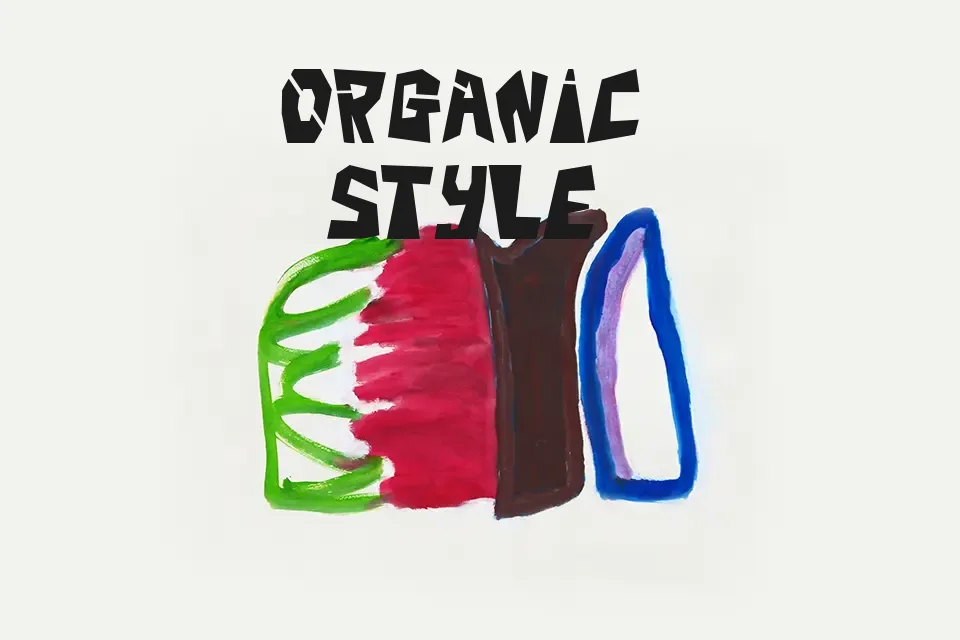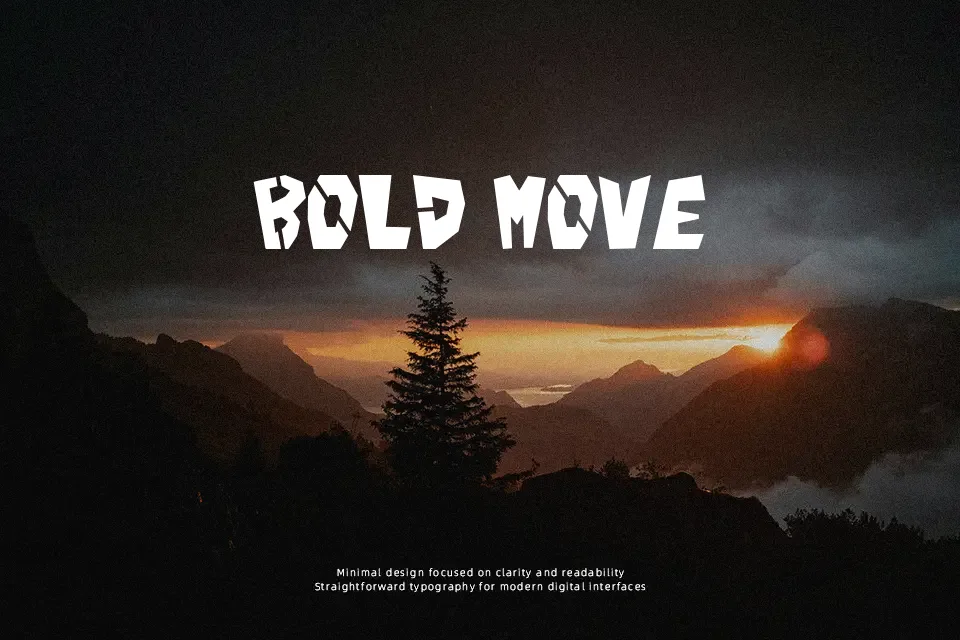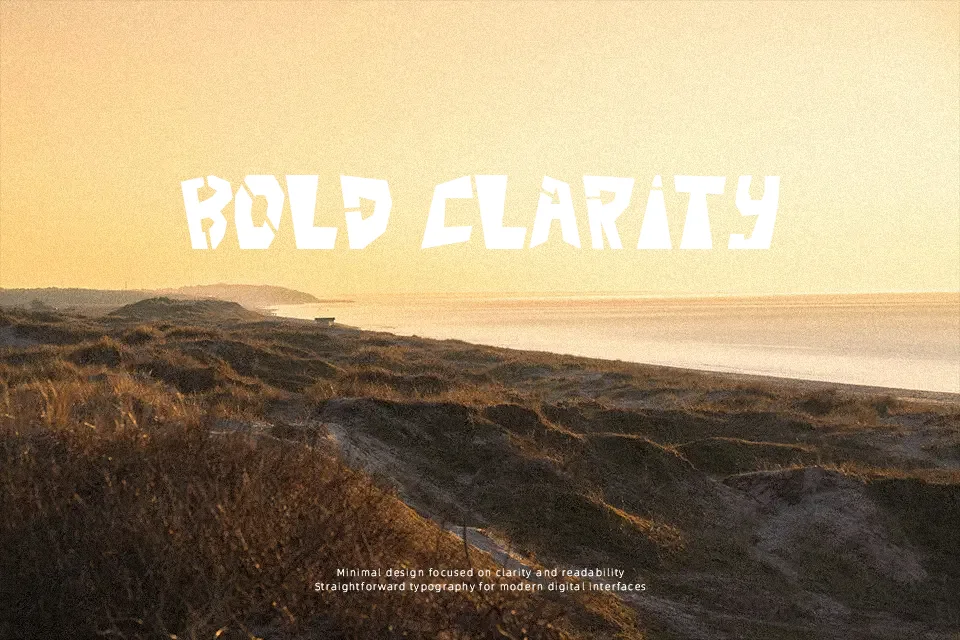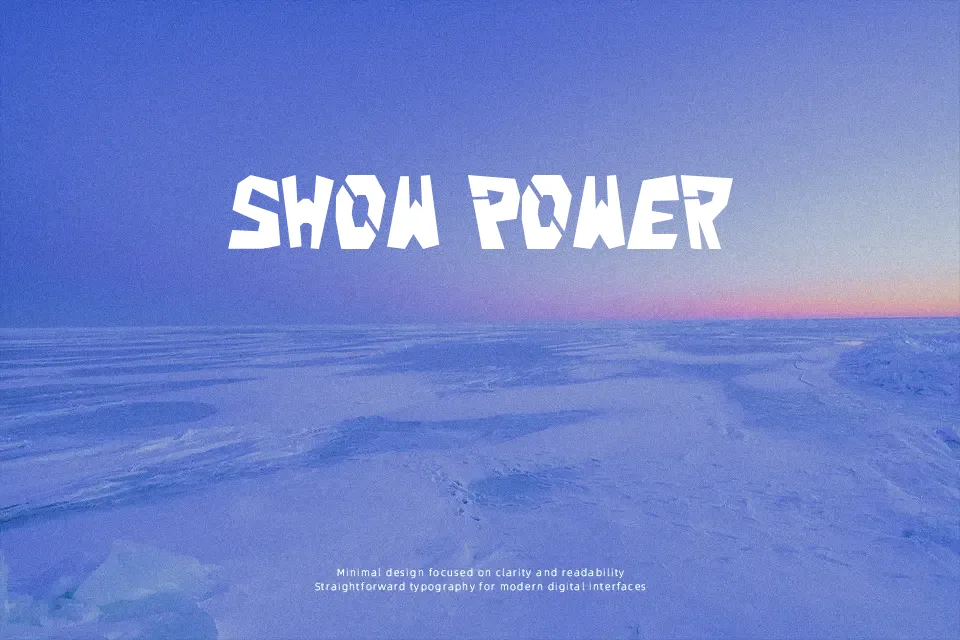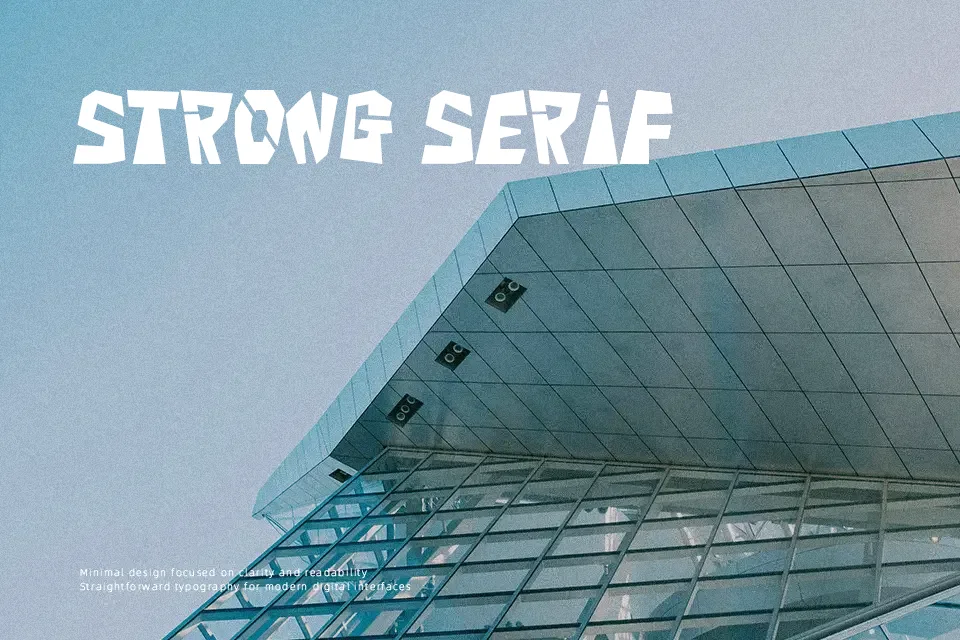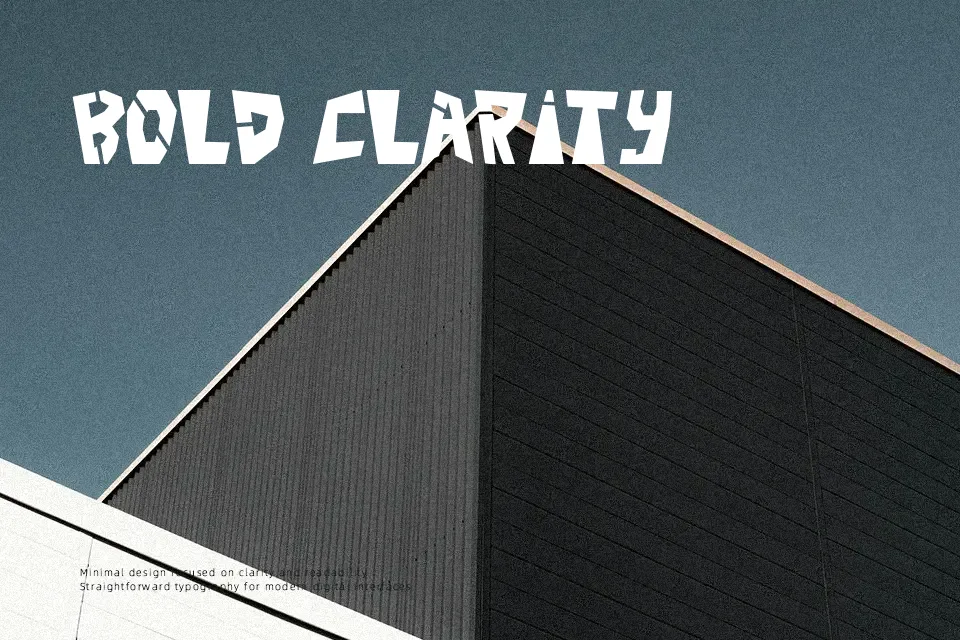
Big Teez Sq Font
Designed by Big Teezar
Big Teez Sq brings a blocky cartoon feel, with thick, squared strokes, tight internal curves, and compact spacing that quickly fills space with loud, graphic shapes. The structure leans toward decorative display use rather than everyday reading, giving titles and short phrases a punchy, informal presence. It works well on gaming banners, youth event flyers, or character-based logo marks that need a fun, exaggerated tone instead of something formal. Because of its weight and quirky outlines, it becomes hard to scan in longer paragraphs or small sizes and can feel overwhelming when overused. It performs best when treated as a headline accent, not as a general-purpose text family.
bold gaming logo titles
kids event posters and flyers
comic-style social media headers
long paragraph text or captions
formal corporate communications
dense data layouts or reports
small-size UI text
Perfect for branding, headline, and logo, with a bold and cartoon style.